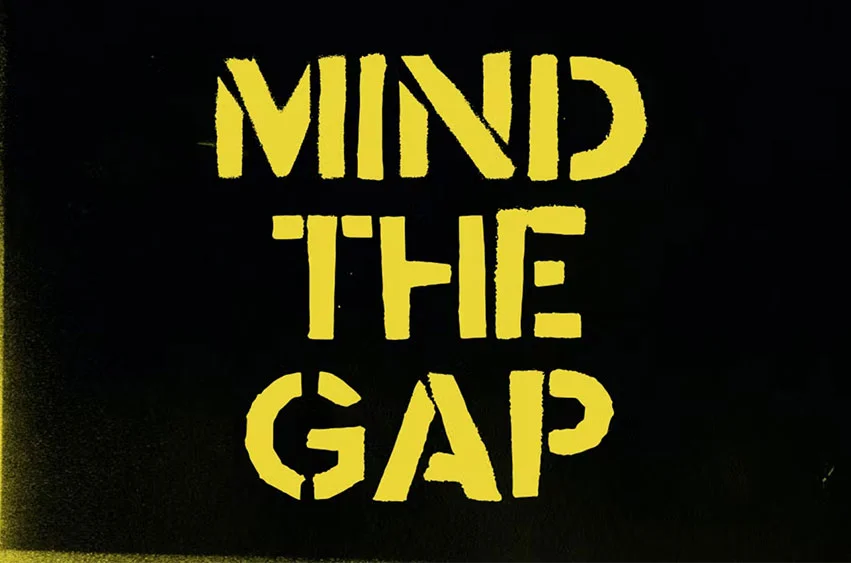
Stencil Font was created by hand-cutting letter stencils and spraying them with black paint. This gives it an industrial almost military look and feel.
Mind the Gap includes one stylistic alternative for uppercase and lowercase A-Z. Plus an additional stylistic alternative for A,B,D,O,P,Q,R and a,b,d,e,g,o,p,q and three alternatives for numbers.
That means you can change out repeated glyphs with alternatives.